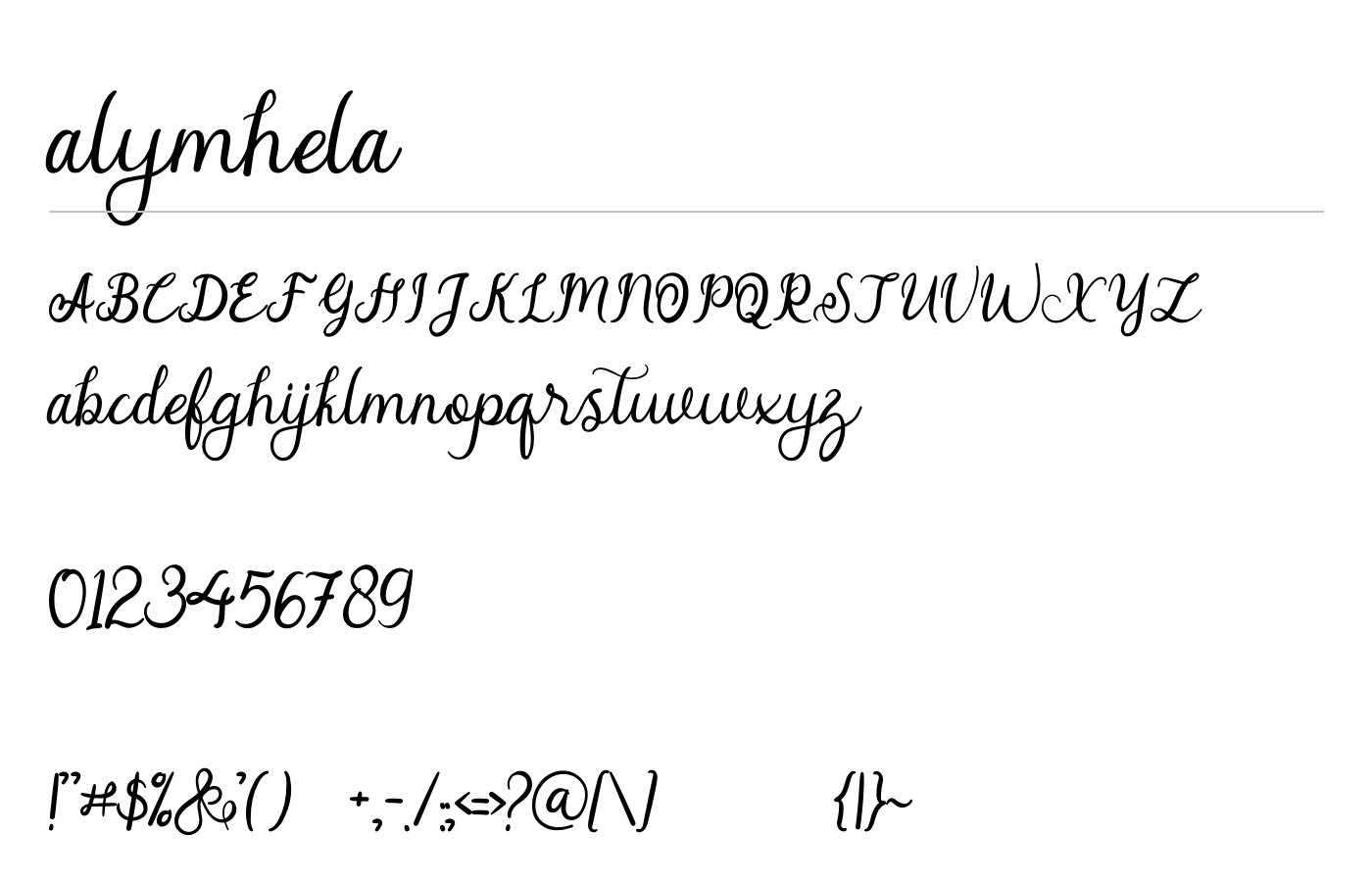
Alymhela is a delicate script font with a light, flowing style that mimics elegant handwriting. Its slender strokes and graceful curves lend a refined and personal touch, making it ideal for invitations, branding, and projects that seek a sophisticated yet approachable feel. This font shines in designs that want to communicate charm and elegance without feeling too formal or rigid.
| Font family | alymhela Font |
| Designer | MJB Letters 2019 |